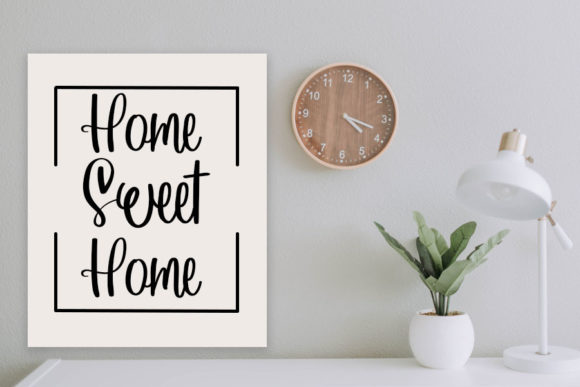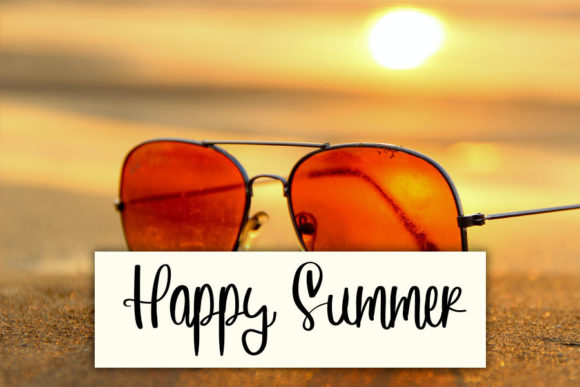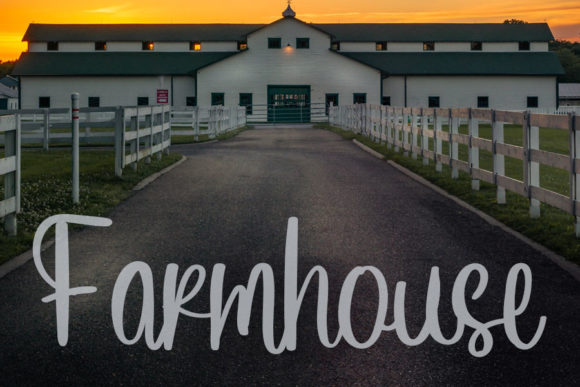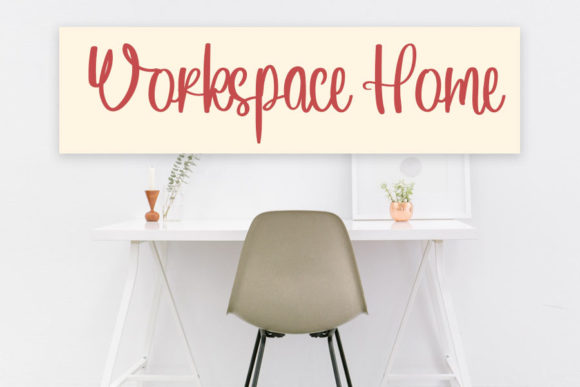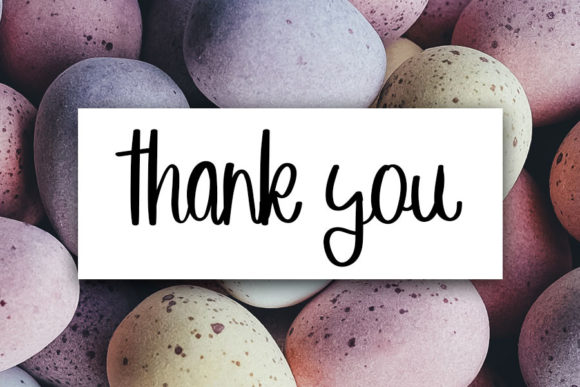
Love Coffee Font
About Love Coffee Font
Love Coffee is a cute and chic looking handwritten font. Its natural and unique style makes it incredibly fitting to a large pool of designs. The only limit is your imagination!